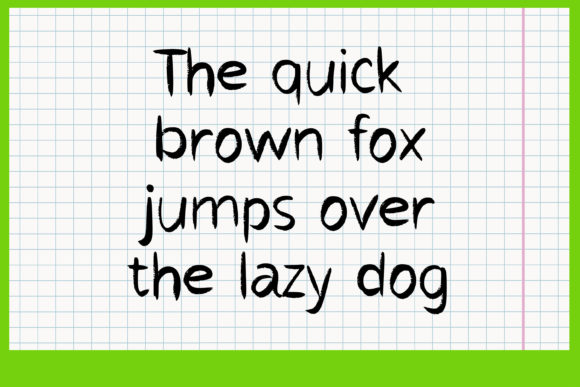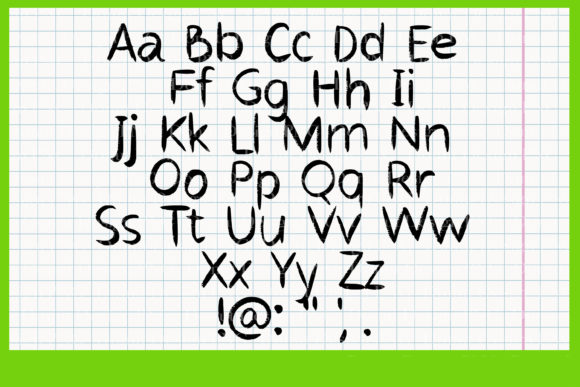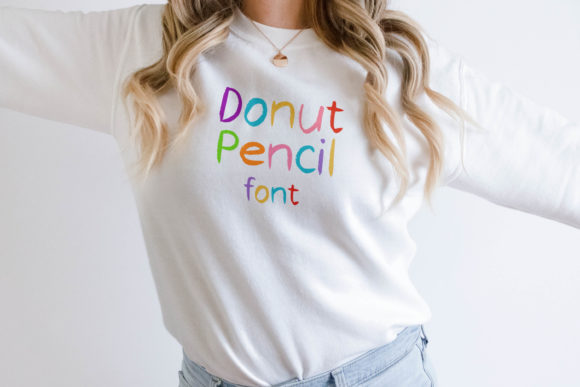
Introduction to Donut Pencil Font
Have you ever been working on a creative project and stumbled upon the perfect font to bring your design to life? That’s exactly what happened when I discovered the Donut Pencil Font. Its adorable hand-drawn style and casual vibe instantly captured my attention, and I knew I had to share it with fellow designers.
The Donut Pencil Font is a high-quality display font that’s perfect for adding a relaxed touch to your designs. With its transparent background, this font can be easily customized to fit any design resource, making it a valuable addition to any designer’s toolkit. Whether you’re working on a branding project or a fun social media graphic, the Donut Pencil Font is sure to bring a smile to your design.
Key Features of Donut Pencil Font
- High-quality, hand-drawn design suitable for creative projects and design resources.
- Unique, playful style with a transparent background, allowing for easy layering and customization.
- Perfect for designers, artists, and creatives working on projects that require a fun, whimsical touch.
- Can be used in a variety of creative contexts, from branding and advertising to digital art and educational materials.
Honest Review: Donut Pencil Font
- ✨ High-quality design: The font is well-crafted and has a unique, playful feel to it.
- ✨ Transparent background: This is a huge plus for designers who need to work with a transparent background for their designs.
- ✨ Great for creative projects: I love using this font for projects that require a bit of whimsy and personality.
- ⚠️ Limited font weights: While the font has a nice range of styles, it’s not as comprehensive as some other fonts I’ve used.
- ⚠️ Not ideal for body text: While it’s great for headings and titles, I found the font a bit too ornate for body text.
Overall, I think the Donut Pencil Font is a great addition to any designer’s toolkit. While it may not be perfect for every project, it’s a high-quality design resource that’s definitely worth exploring.
Tips for Getting the Most Out of Donut Pencil Font
Experiment with different font sizes and colors to achieve a unique look. Use the Donut Pencil Font in conjunction with other design elements to create a cohesive and visually appealing design.
The Donut Pencil Font is ideal for creative projects such as invitations, social media graphics, and blog posts. Its high quality and unique design make it a valuable resource for designers and non-designers alike.